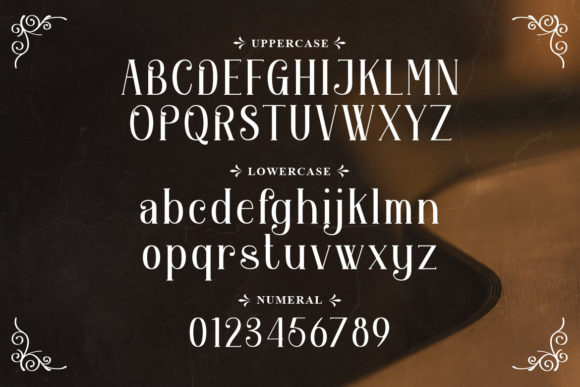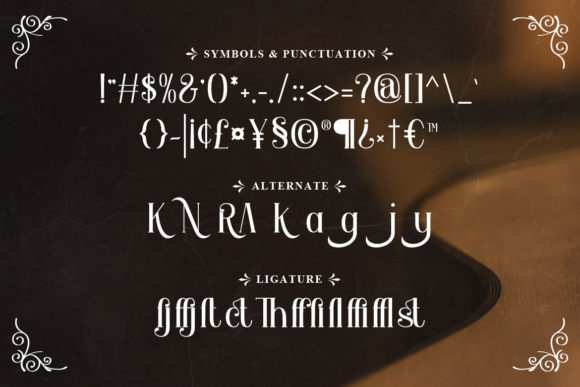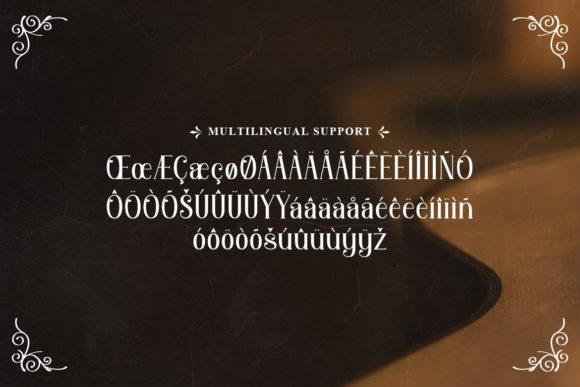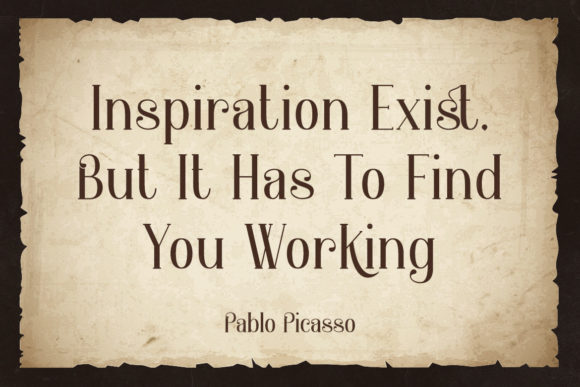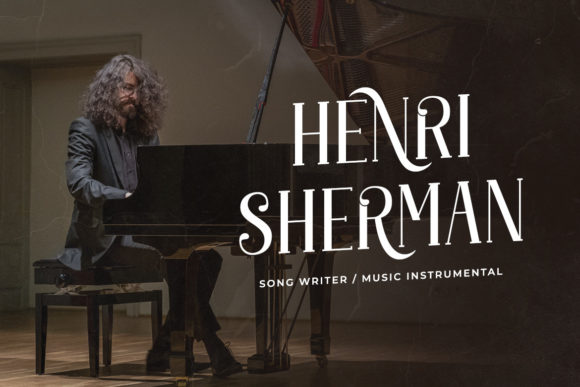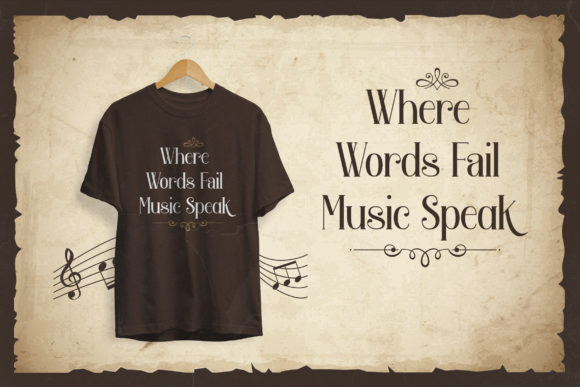
Introduction to Orchard Song Font
Orchard Song is an elegant, thin lettered and unique serif font.
It will elevate a wide range of crafting ideas, from cards, to branding, labels and much more Add it confidently to your favorite creations and let yourself be amazed by the outcome generated.
Key Features of Orchard Song Font